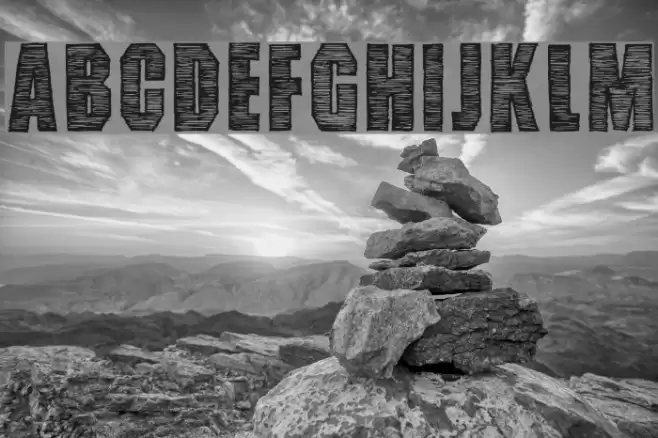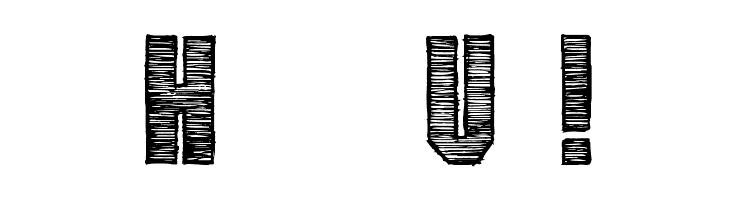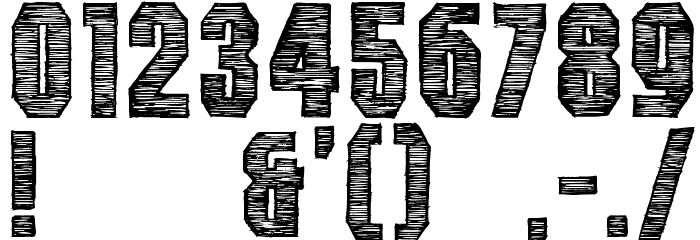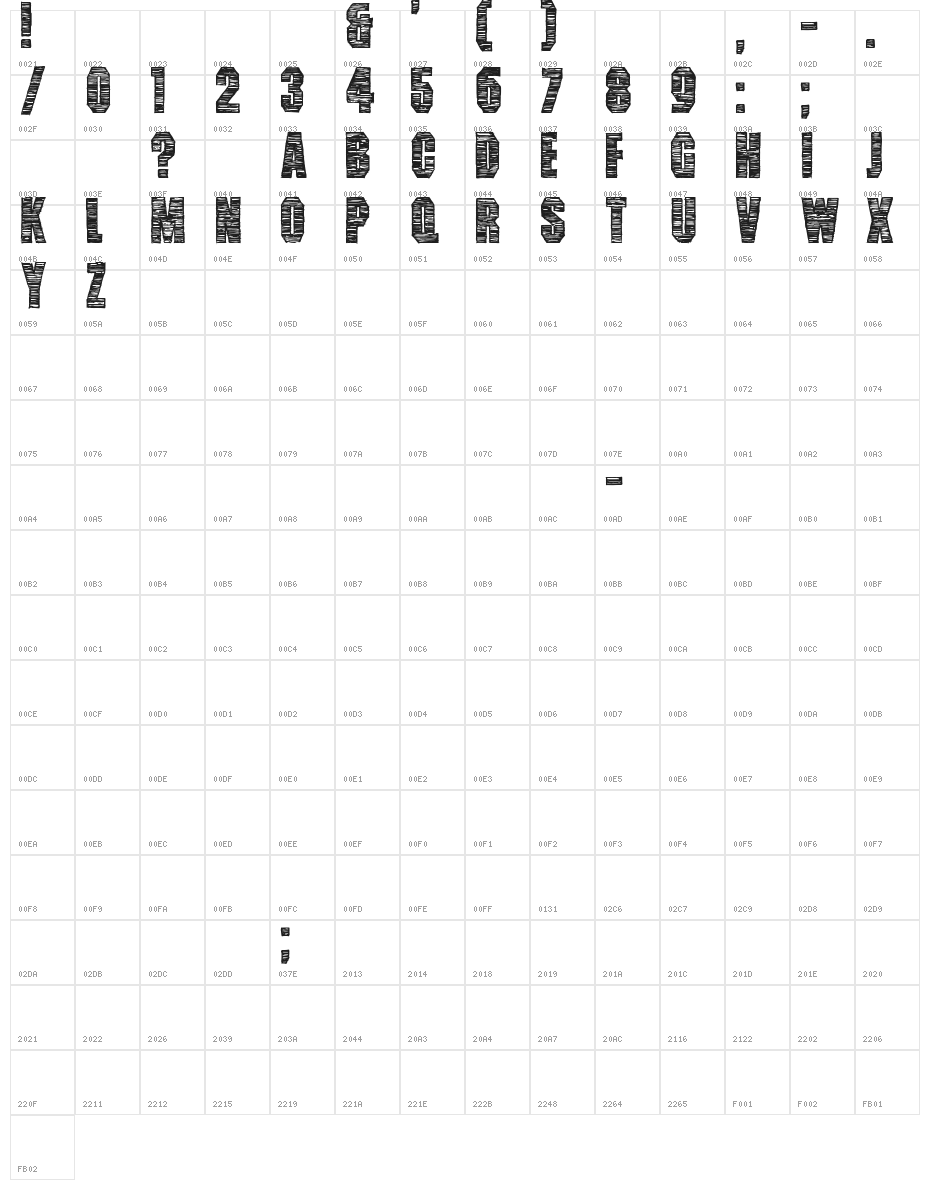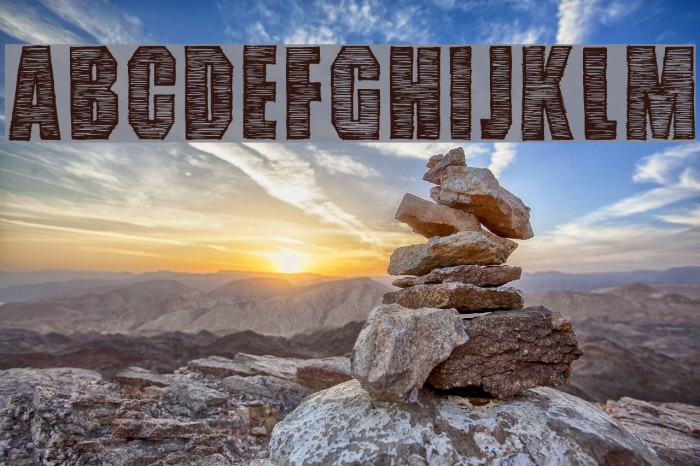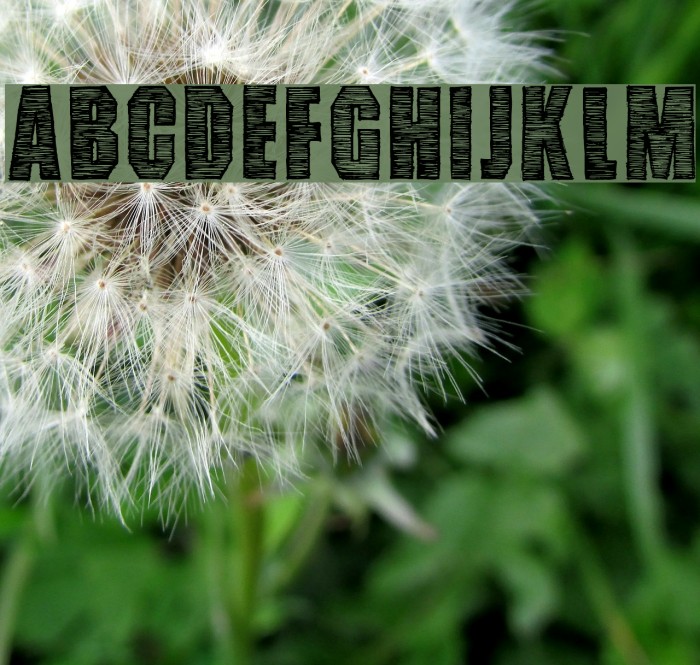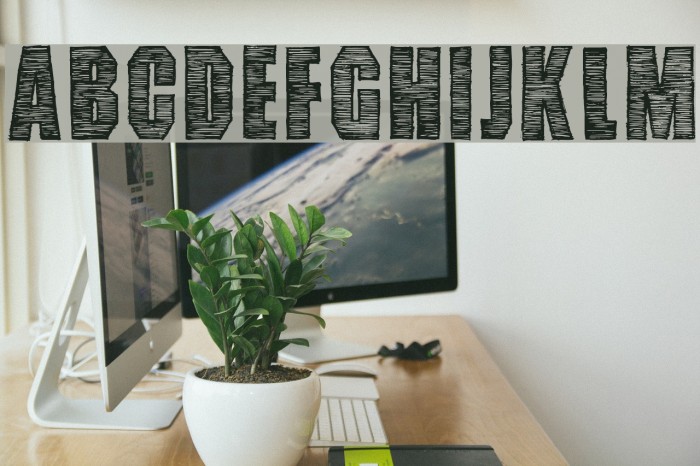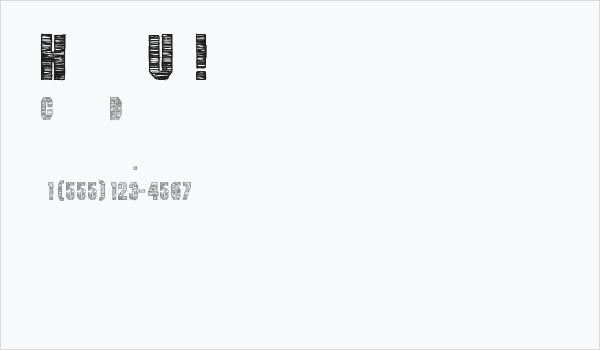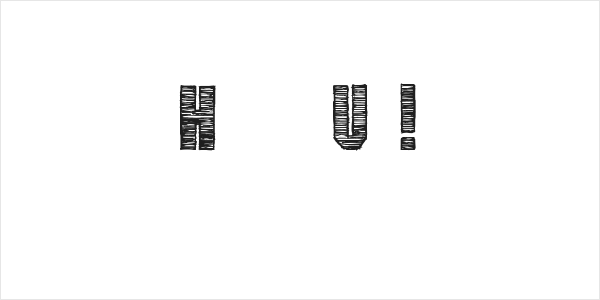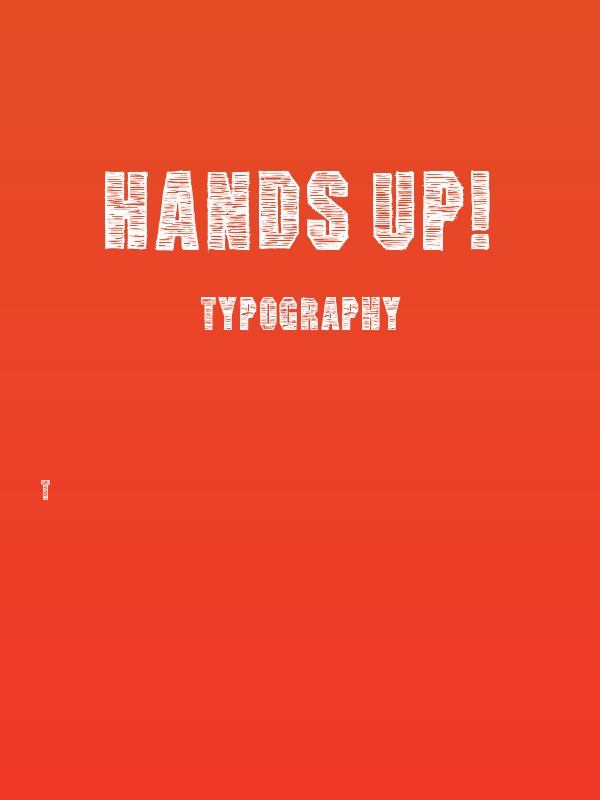
Hands Up! Font
Hands Up! Description
This font features a bold, hand-drawn style with a textured, sketch-like appearance. Each character is filled with horizontal lines, giving it a rugged and artistic feel. The uppercase letters are prominent and eye-catching, while the numbers and special characters maintain the same textured style. The font's unique design makes it stand out, suitable for projects that require a creative and informal touch. Its distinct appearance is reminiscent of hand-drawn illustrations, adding a personal and artistic flair to any design.
A bold, hand-drawn font with a textured, sketch-like appearance from Uncategorized fonts.
- Proposed Projects: Ideal for posters, album covers, artistic projects, and any design needing a creative, hand-drawn look.
- Overall Style: Artistic, Hand-drawn
- Use Case: Headlines, Posters, Artistic projects